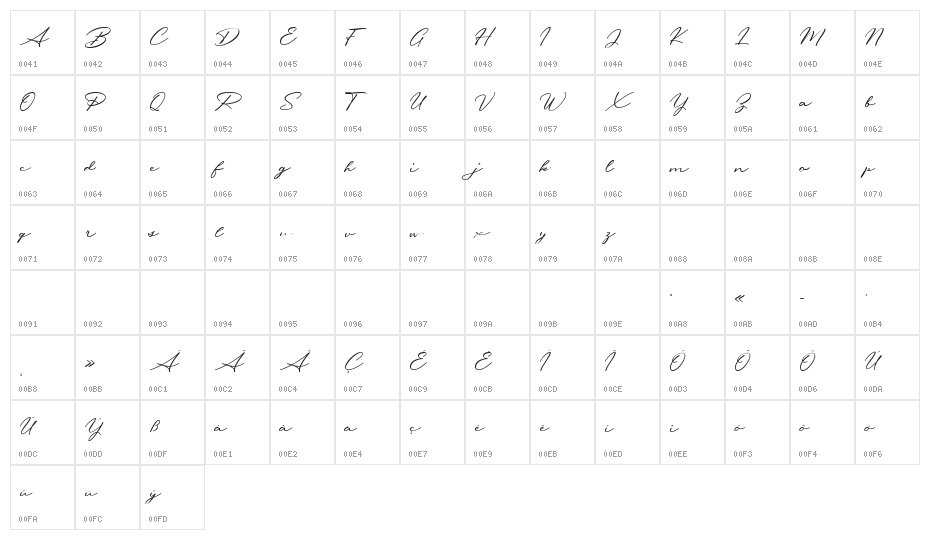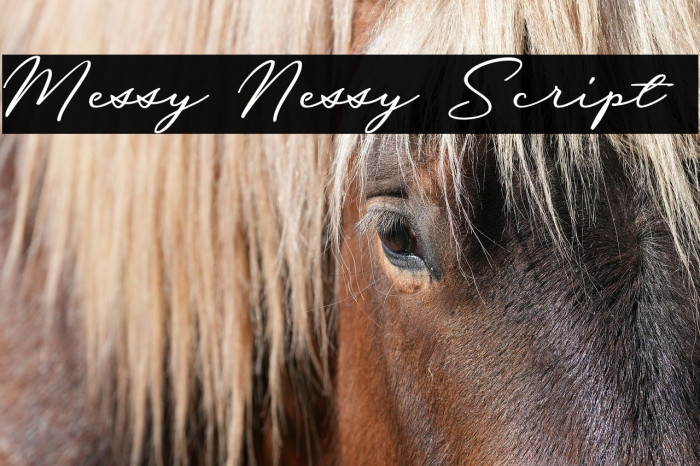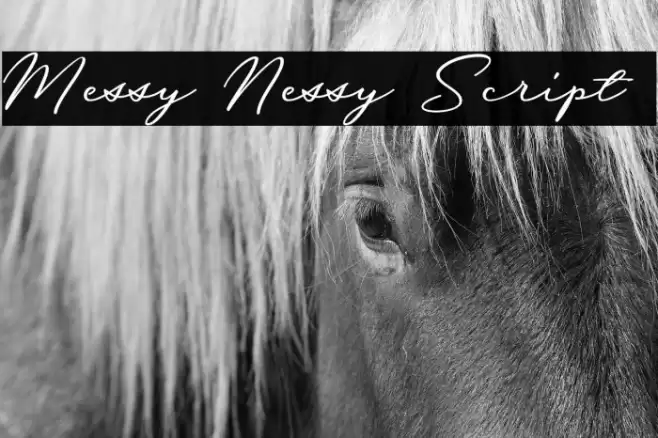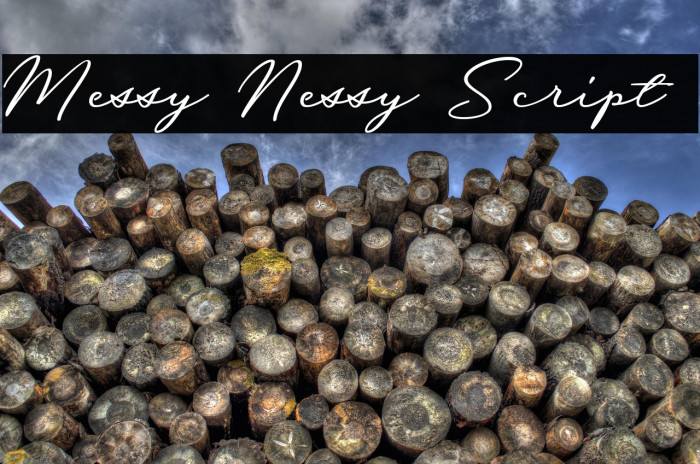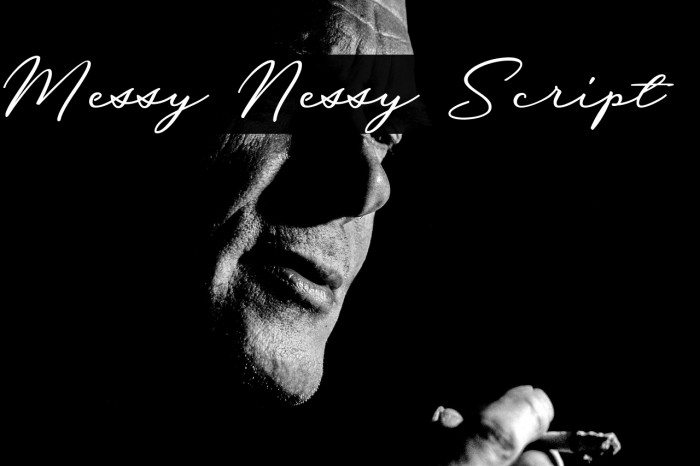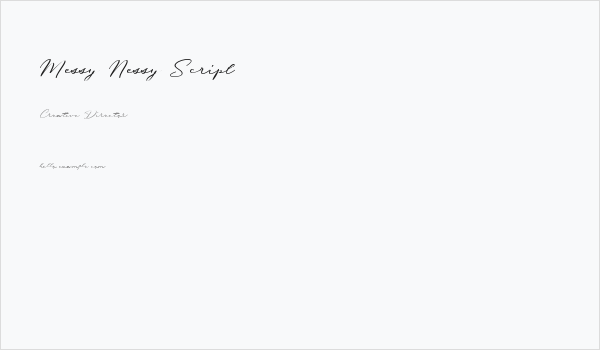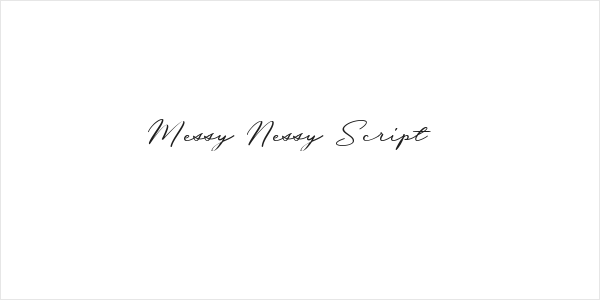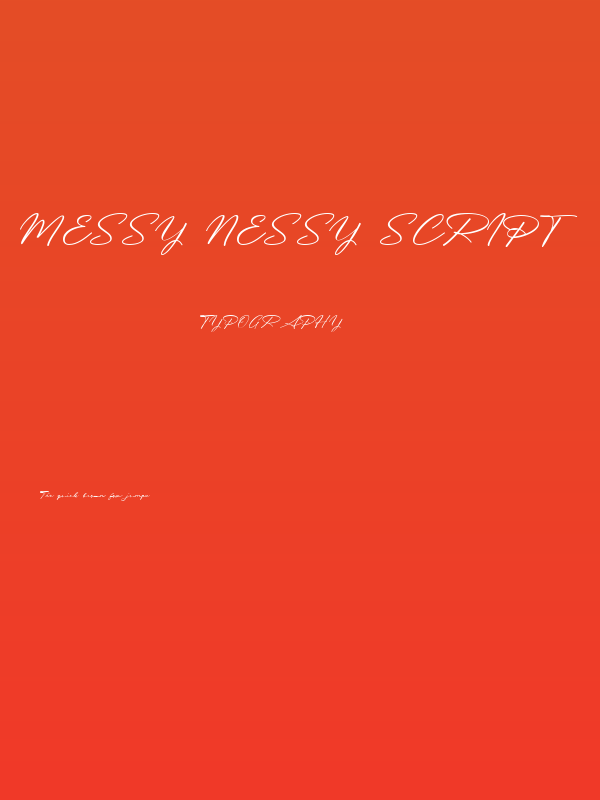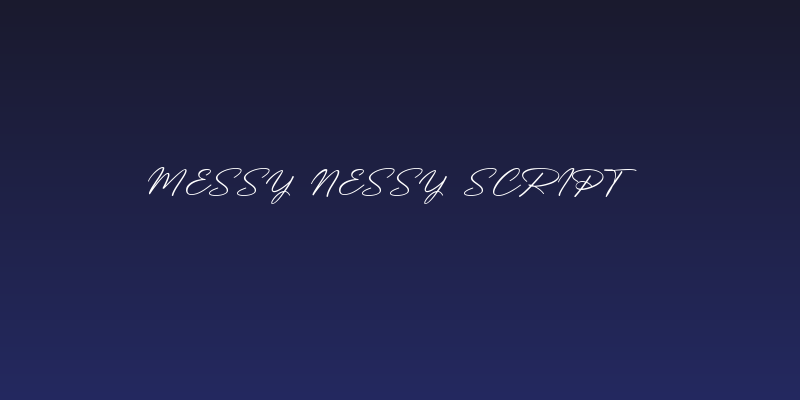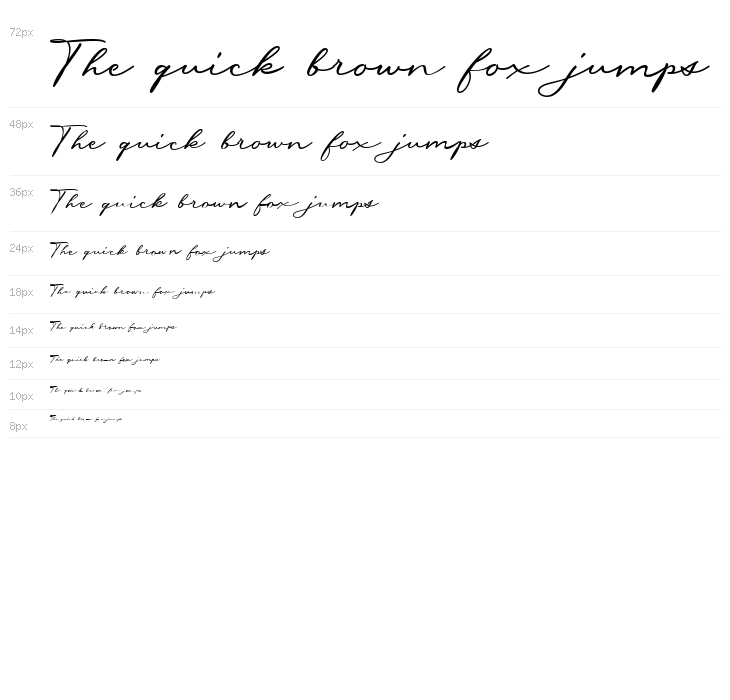
Messy Nessy Script 1 Font
Messy Nessy Script 1 Description
This font exudes a flowing, elegant script style with a handwritten appearance. The characters are interconnected, creating a seamless and fluid look. The uppercase letters are slightly more ornate, with sweeping curves and flourishes that add a touch of sophistication. The lowercase letters maintain a consistent style, with gentle loops and smooth lines that enhance readability. The font's overall aesthetic is both classic and modern, making it versatile for various design needs. It captures the essence of traditional calligraphy while offering a contemporary twist, suitable for creative and formal applications.